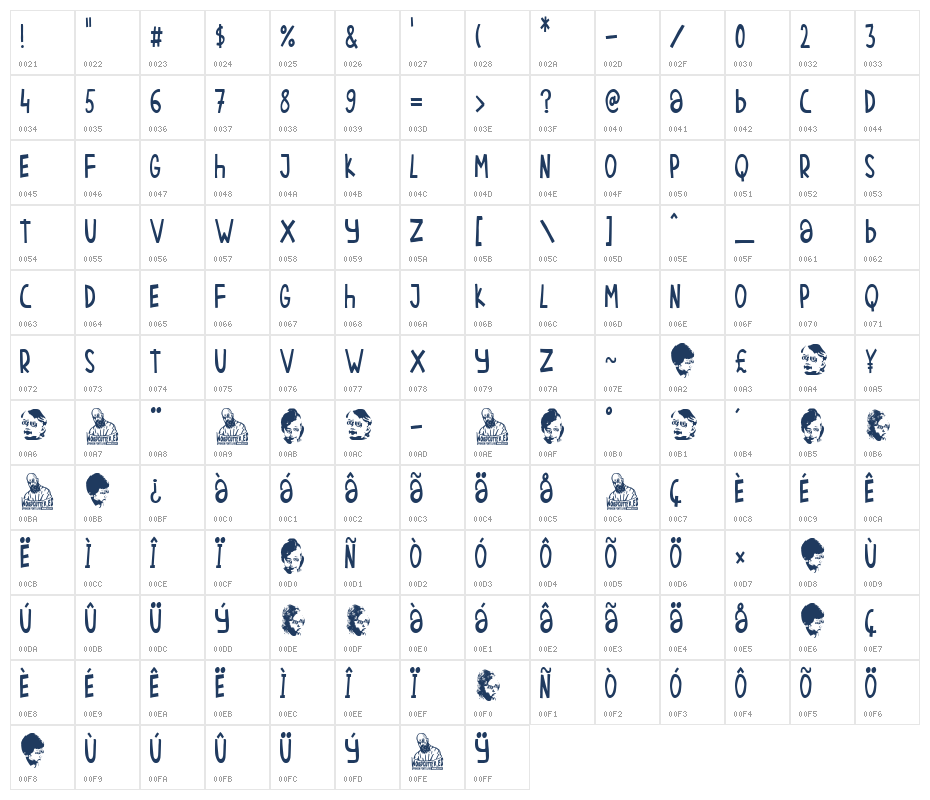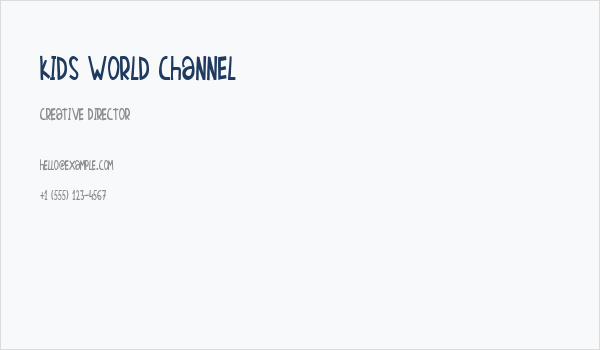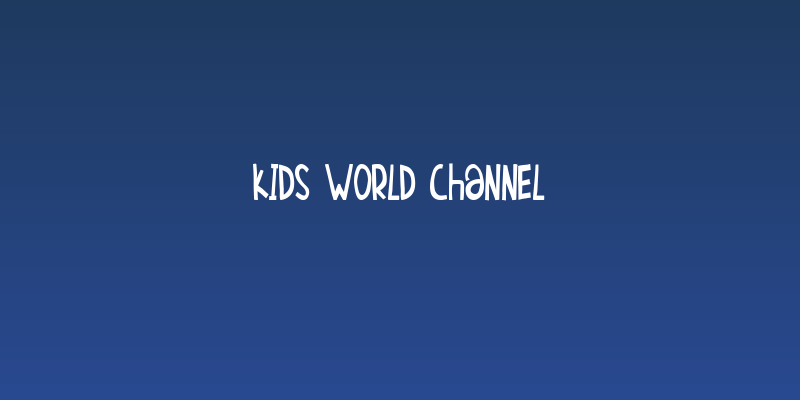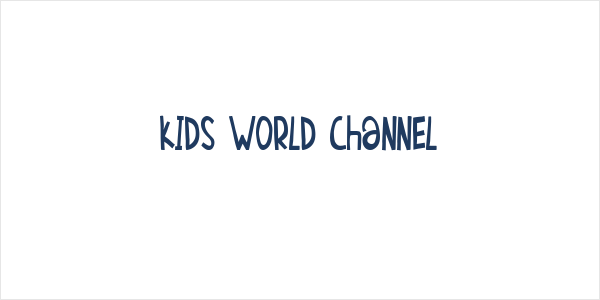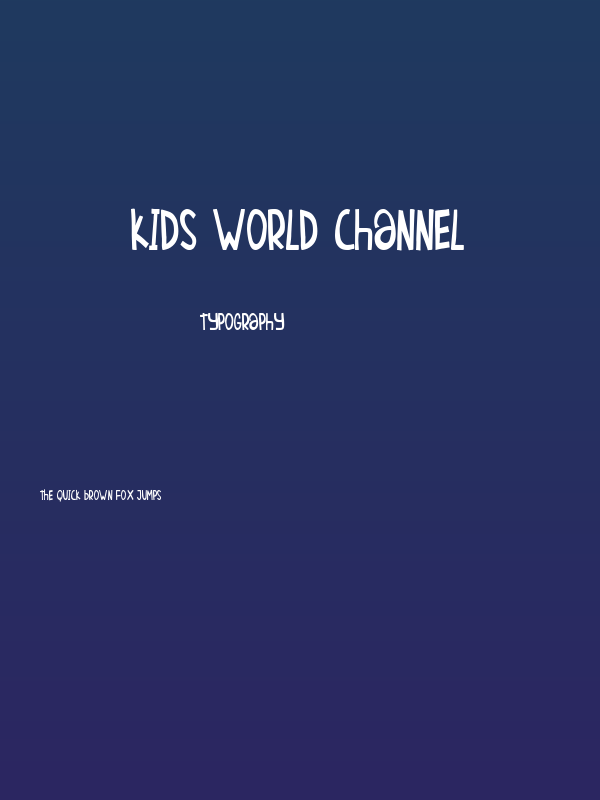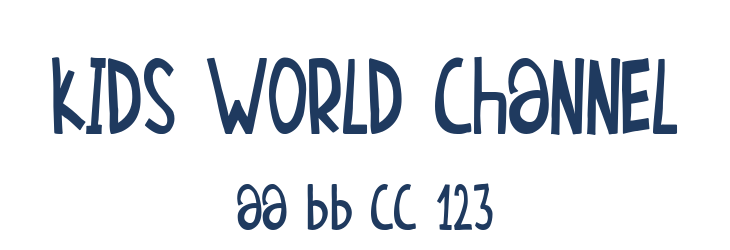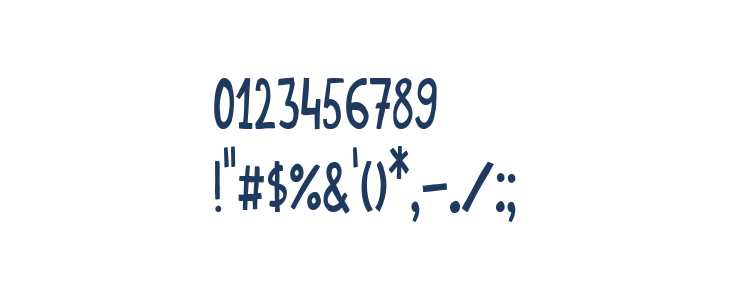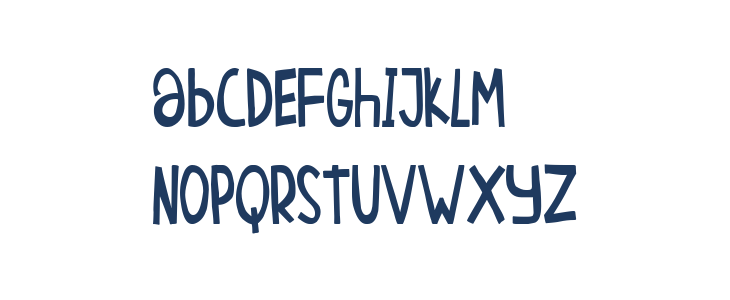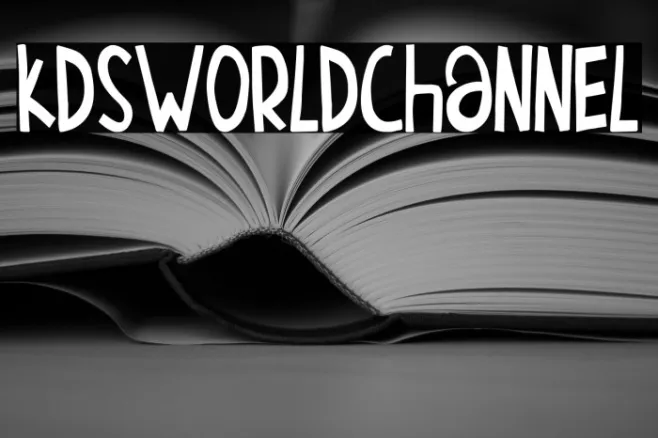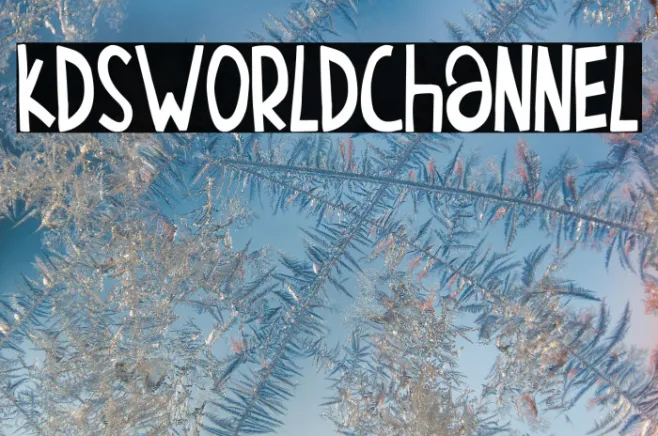
Kids World Channel Font
Kids World Channel Description
Playful, irregular, hand-drawn style font with uneven strokes and whimsical character shapes.
| Overall Style | Playful, Casual, Hand-drawn |
| Use Case | Headlines, Children's materials, Creative projects |